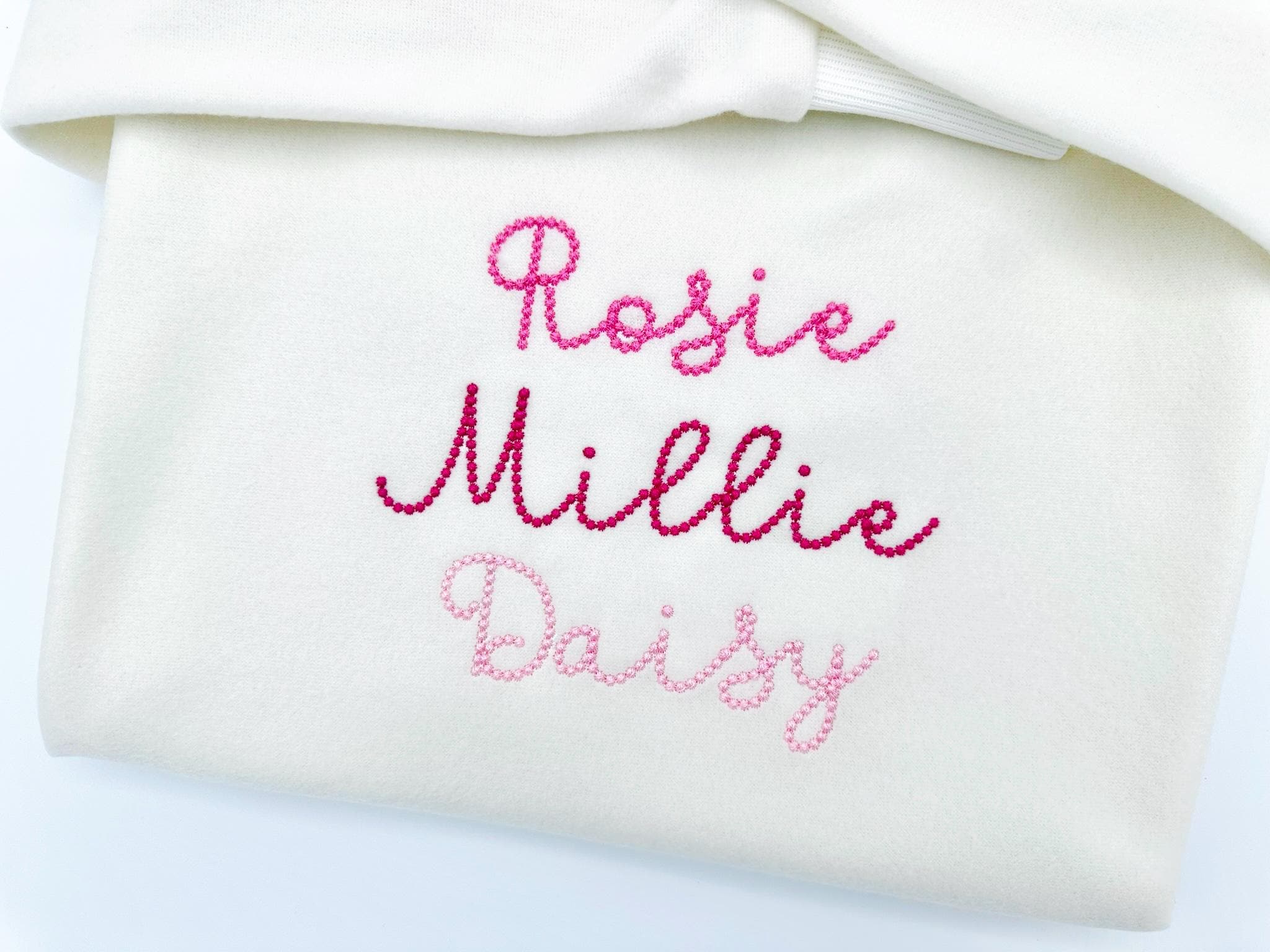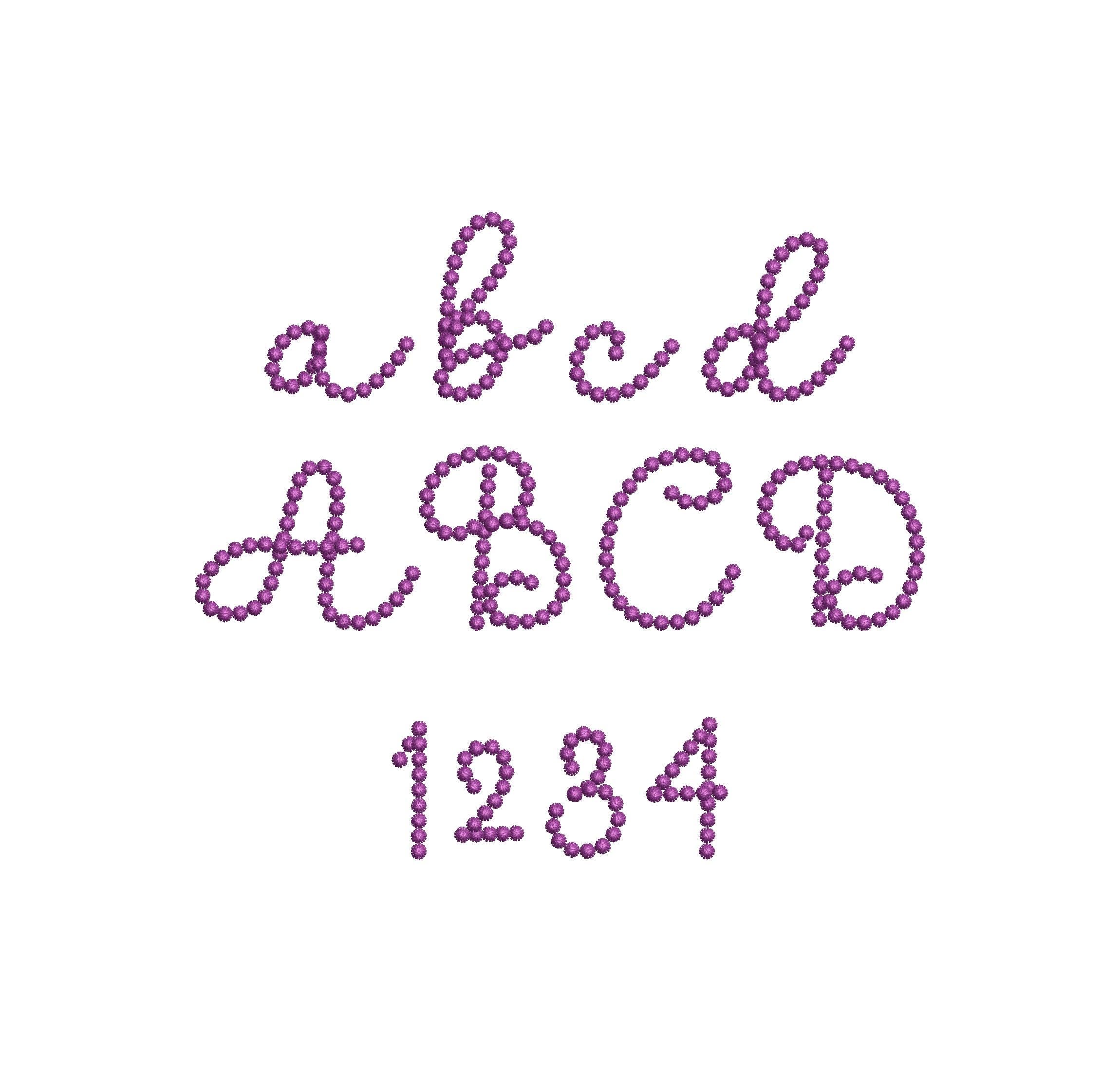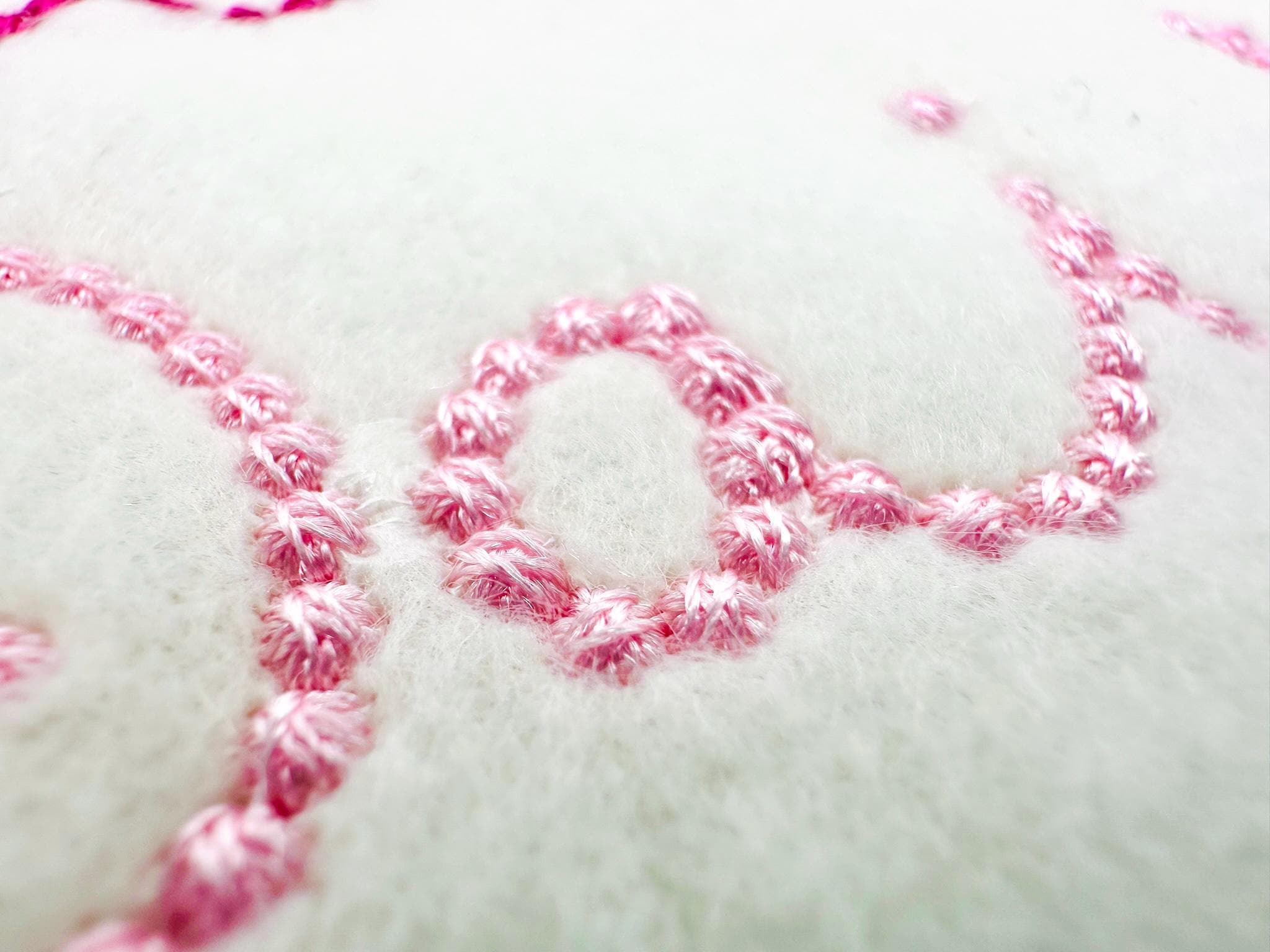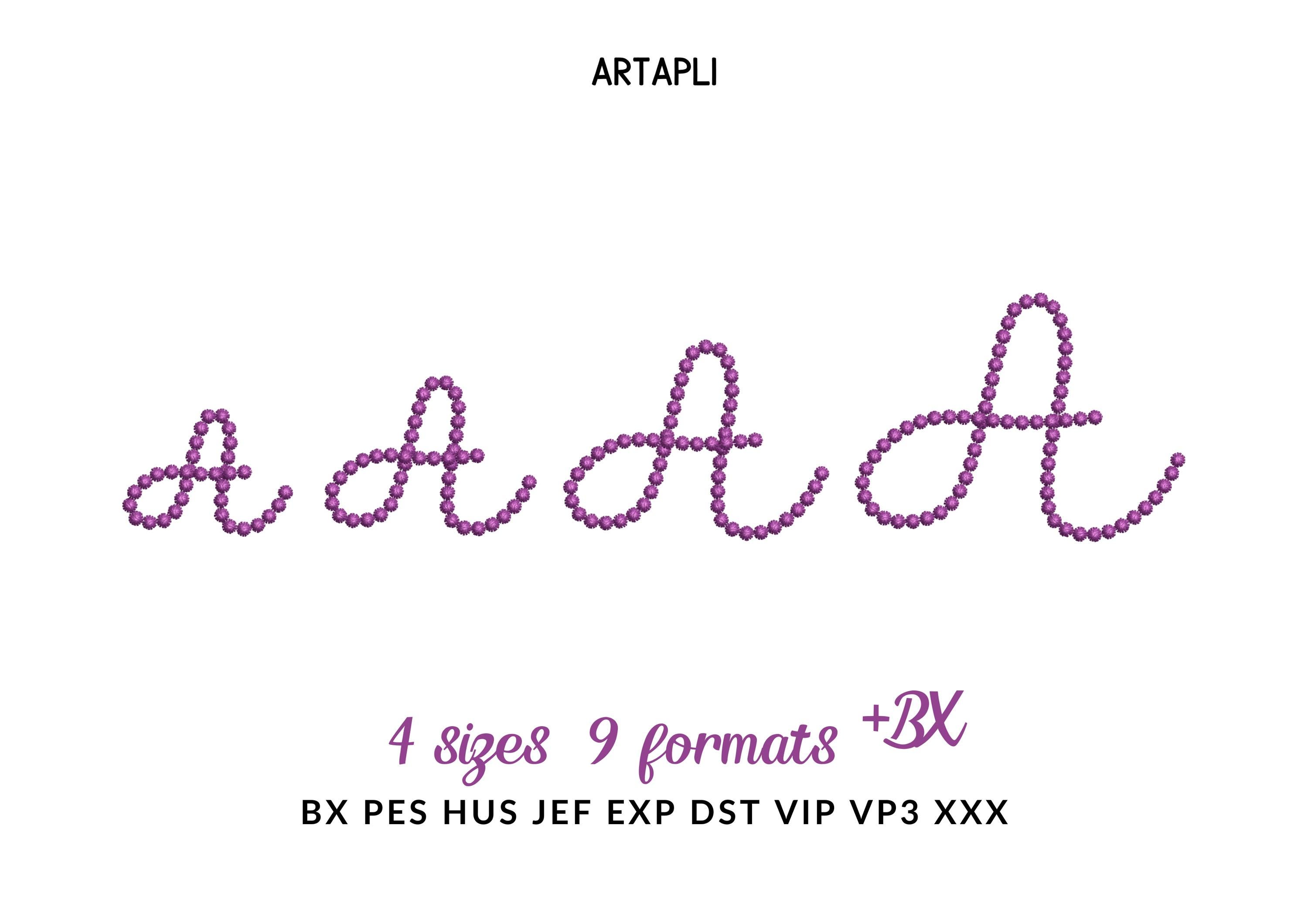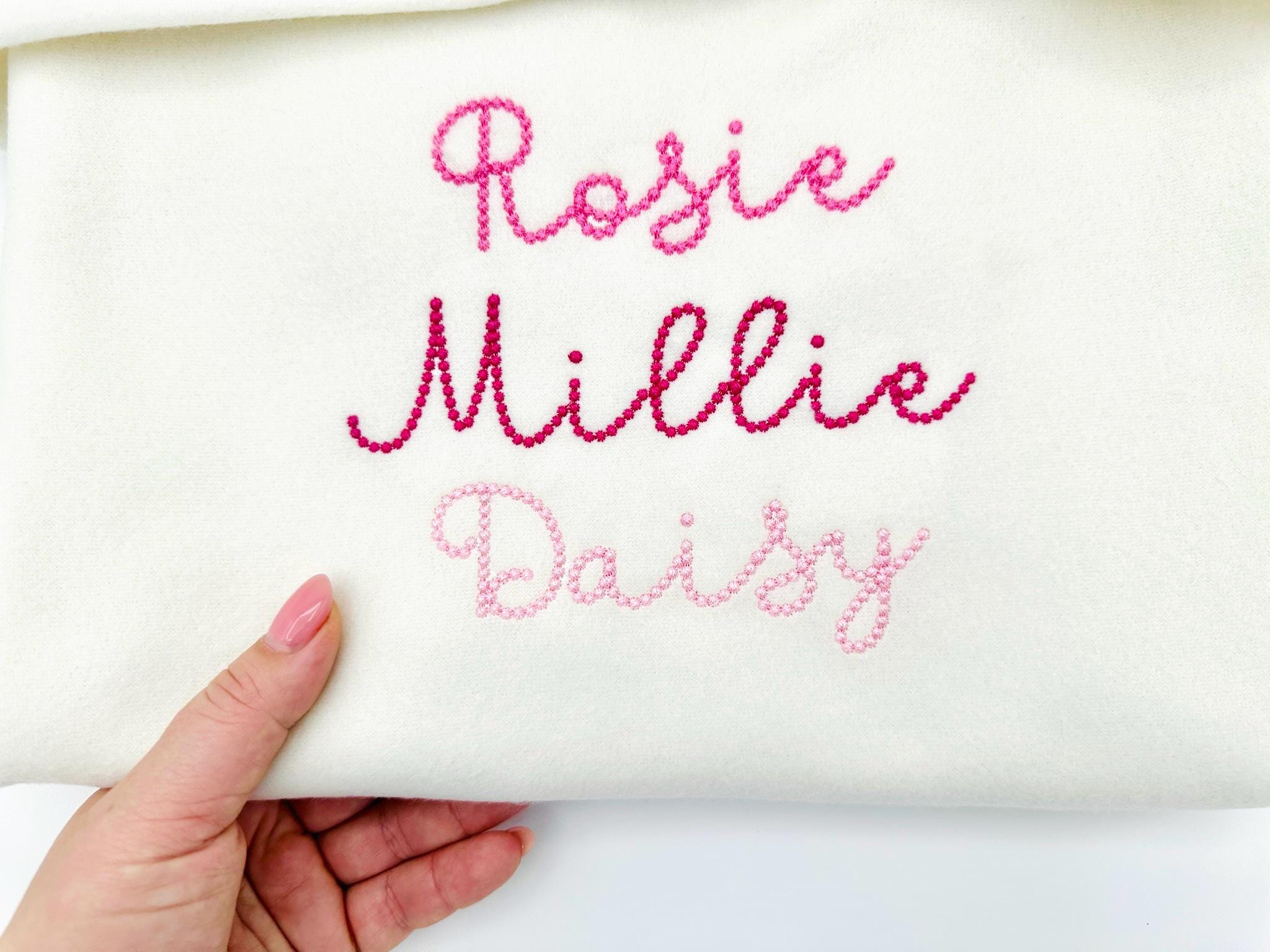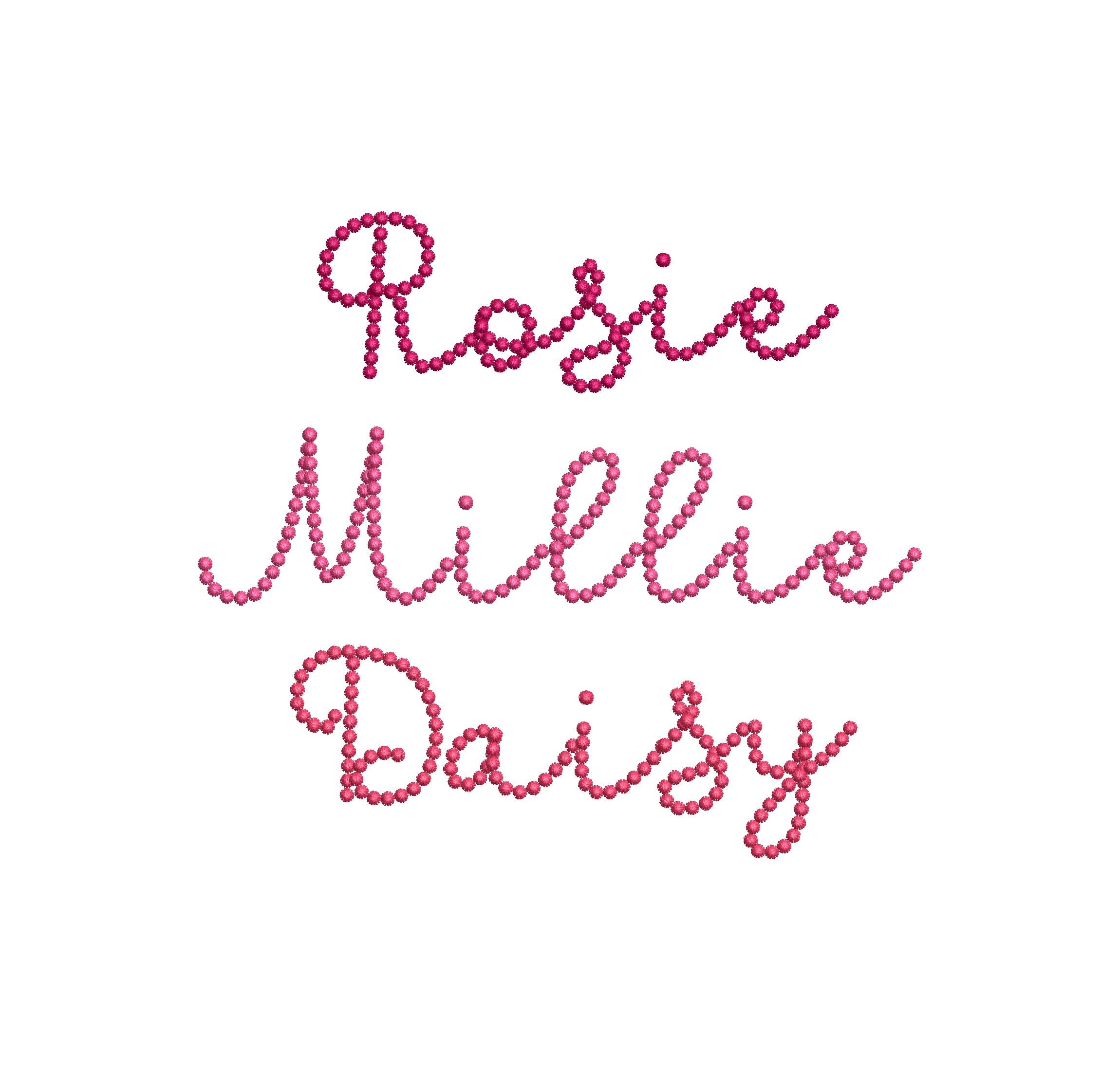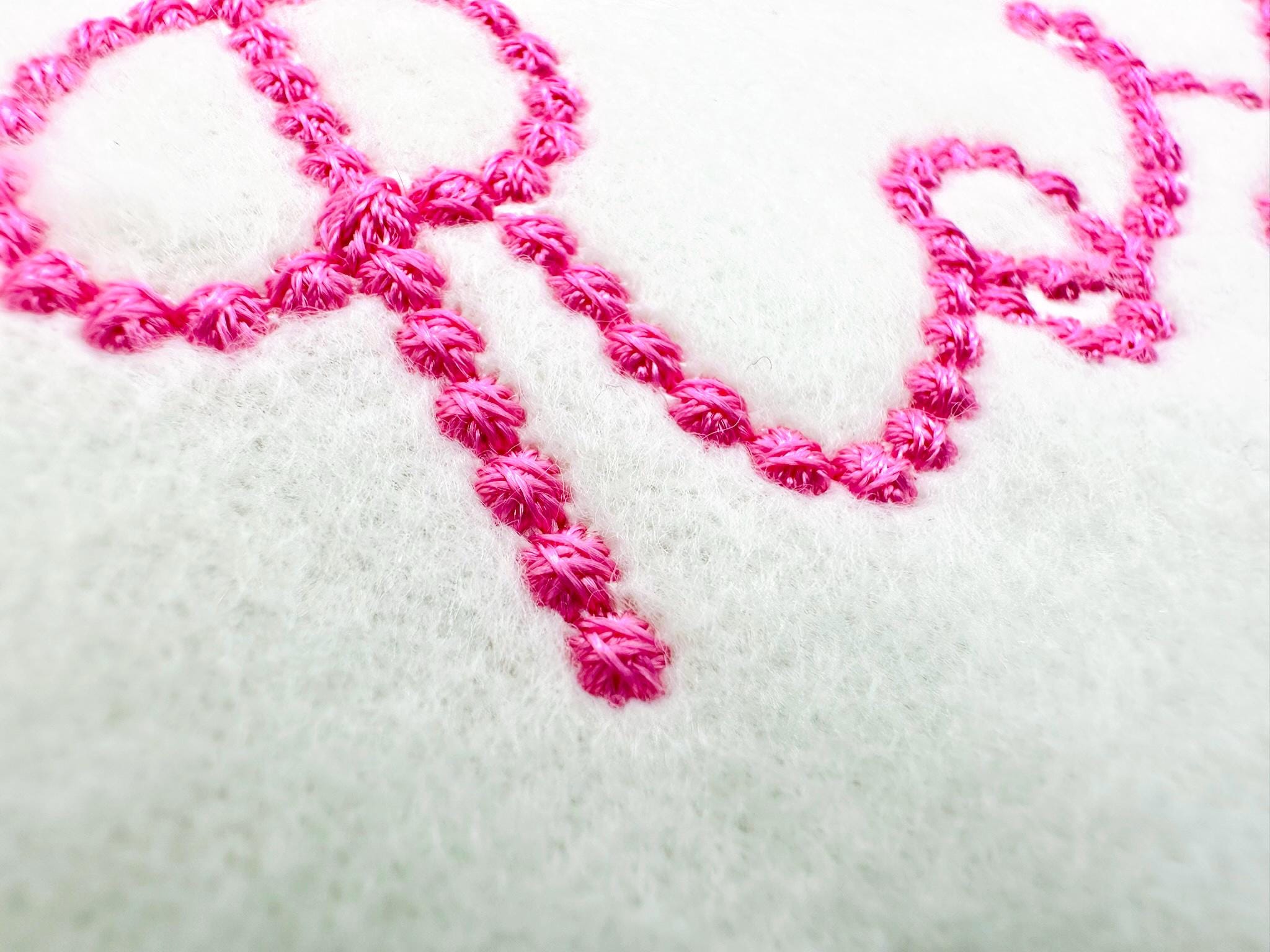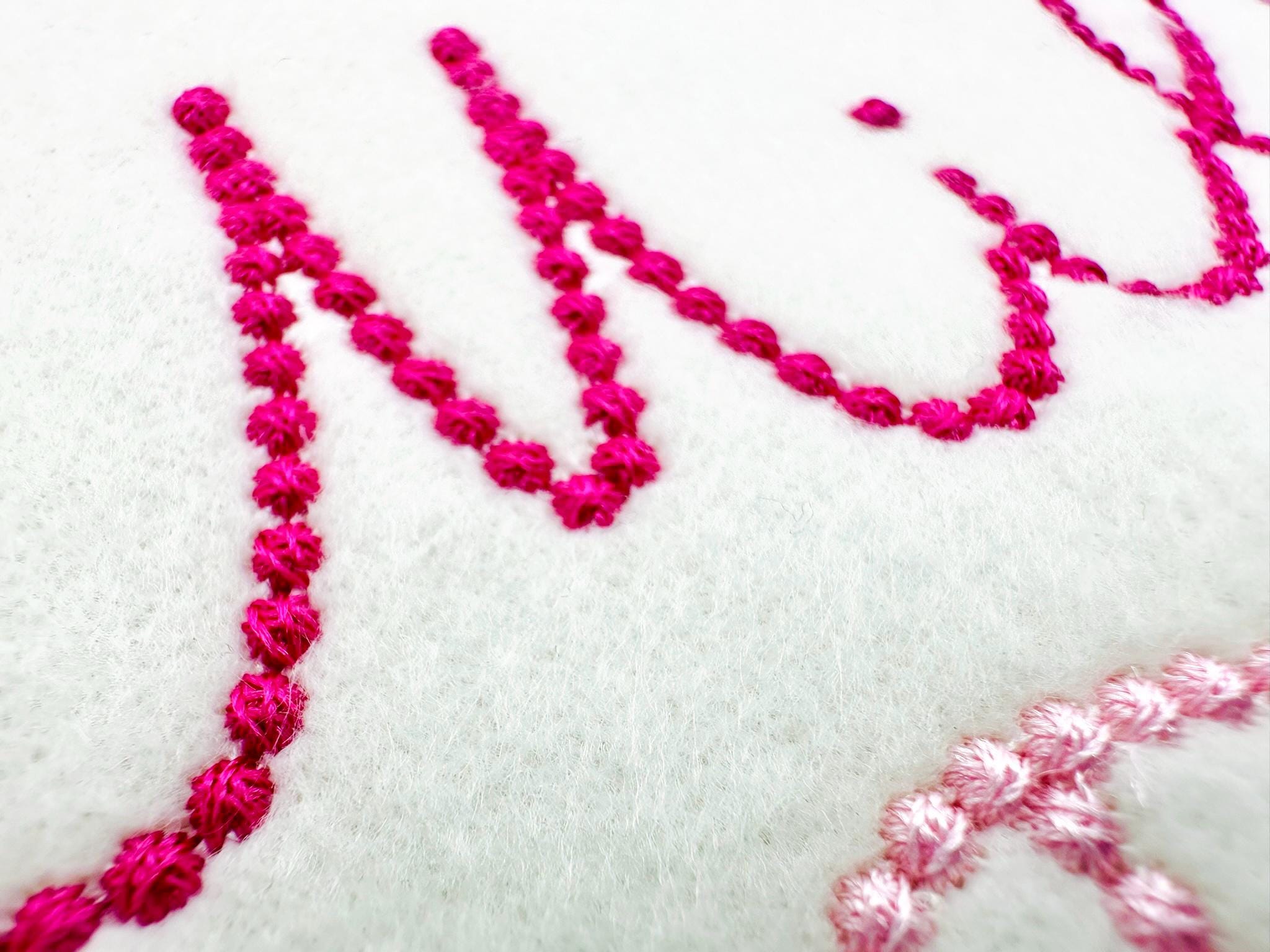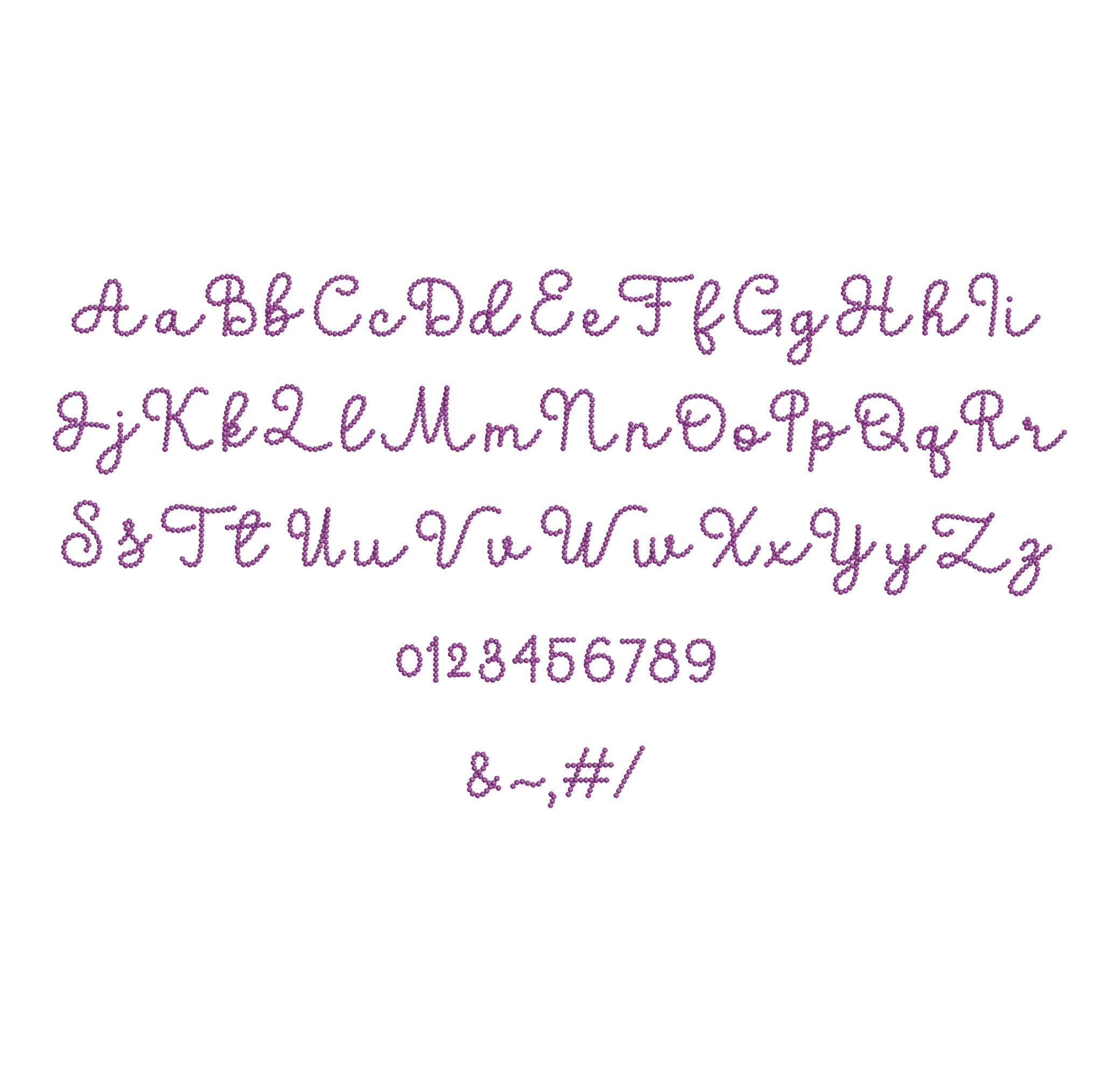
Pearl stitch FONT Bubbly Pearl handwritten script Alphabet Monogram machine embroidery designs kids girls name sizes 1 up to 2 inch, BX
The font has a nice pearl stitch.
Entire alphabet of uppercase and lowercase letters Aa-Zz, numbers 0-9, and punctuation as shown in the image.